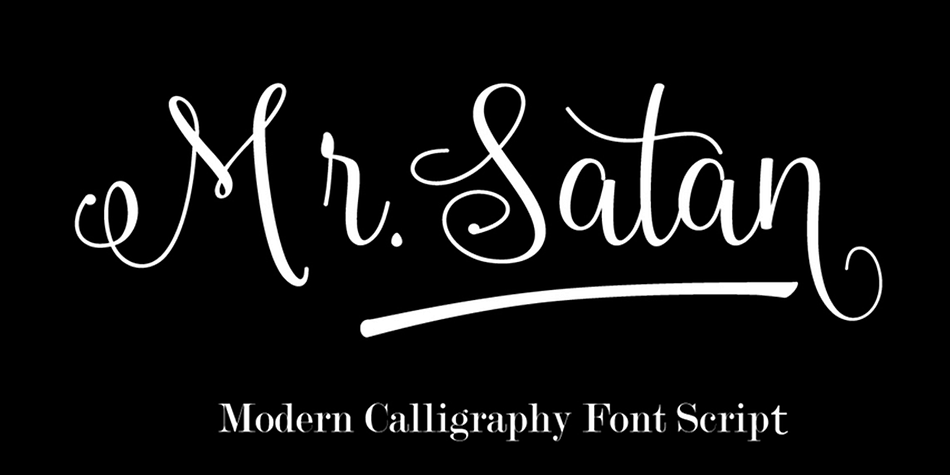
Mr.Satan
Designed by Rahmat Hidayat, Mr.Satan is a modern calligraphy font published by RtCreative.
Mr satan, a work that is purely handwritten, has natural characteristics. It’s perfect for invitations, signatures, blogs, social media, business cards, product brands.
Mr satan is a simple font that has Stylistic standards, Stylistic Alternatives. and includes uppercase and lowercase letters, numbers and punctuation.
Foundry RtCreative
Style Modern Calligraphy
Designer Rahmat Hidayat